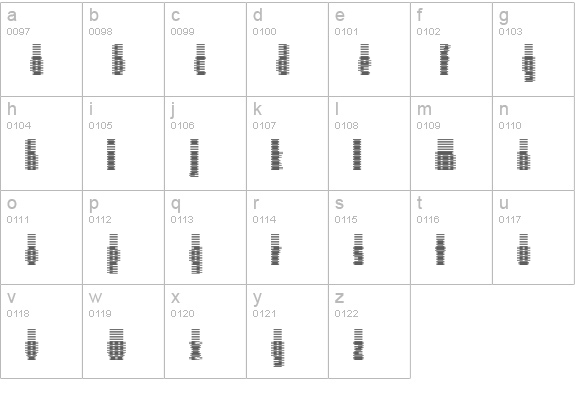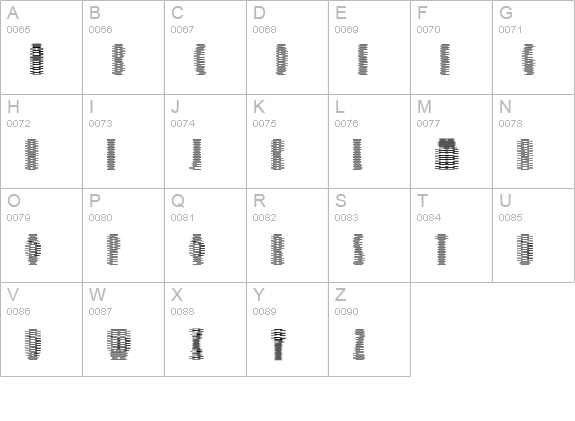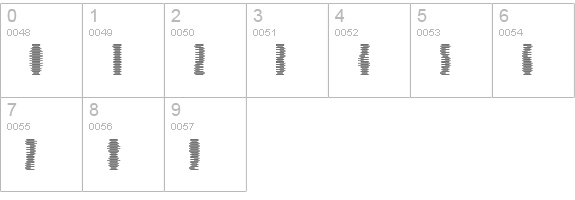
Deeter Font Details
Deeter font is a modern and elegant typeface that exudes sophistication and style. With its sleek lines and unique design, Deeter is perfect for adding a touch of class to any project. This versatile font is ideal for a variety of uses, from branding and marketing materials to website design and more. The best part about Deeter font is that it is available for free download at FontsMarket.com. This means you can easily access this stunning font to elevate your designs without any cost. Don't miss out on the opportunity to enhance your projects with the beauty and sophistication of Deeter font – download it for free today!